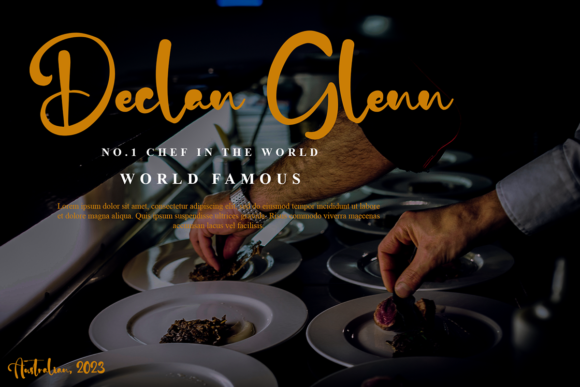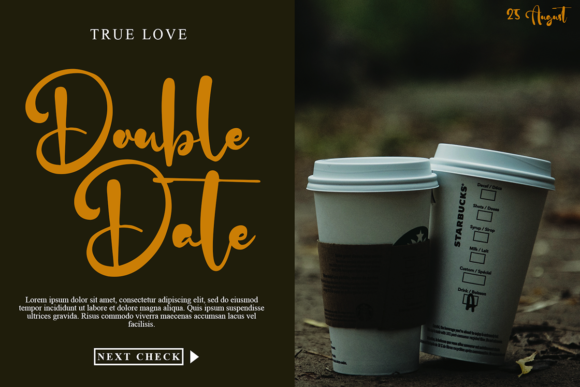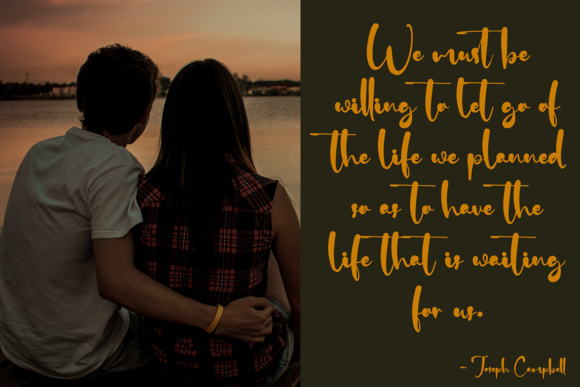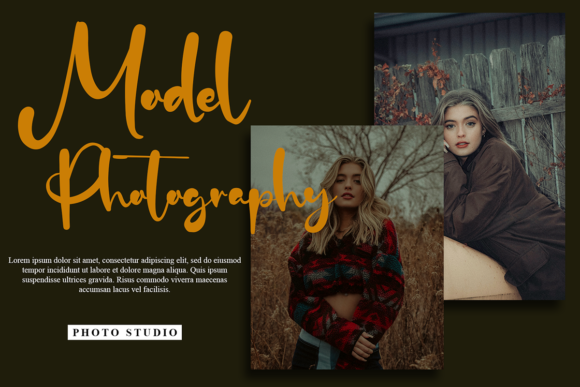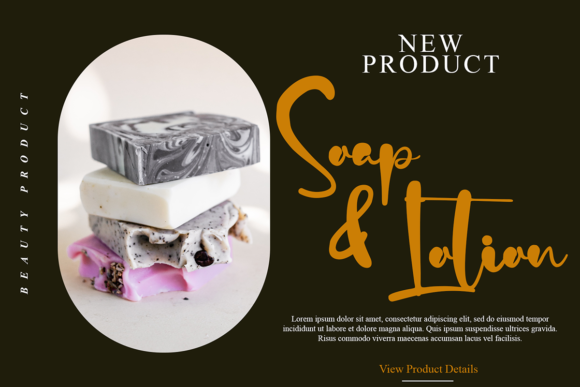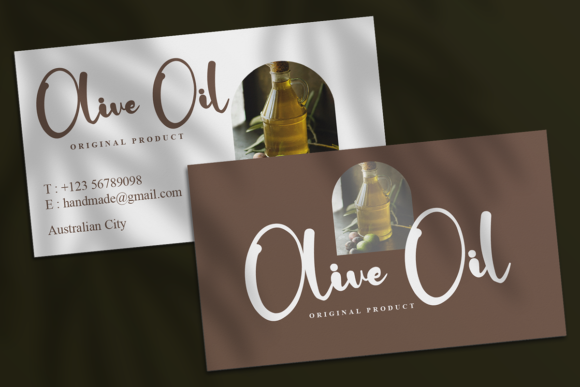
Introducing Dear Rachell Font: Elevate Your Creative Projects with Elegance and Sophistication
In the world of typography, a font can make all the difference in the success of a design project. Whether you’re a seasoned designer or a crafty DIY enthusiast, finding the right font can be a daunting task. That’s where Dear Rachell Font comes in – a modern script typeface designed to add a touch of elegance and sophistication to any creative project.
What is Dear Rachell Font?
Dear Rachell Font is a beautifully crafted script typeface that boasts a comprehensive collection of letters and numbers. This versatile font is perfect for a wide range of applications, from logotypes and branding design to digital lettering, T-shirt/apparel design, posters, magazines, signs, advertising, and more.
Key Features of Dear Rachell Font
- Modern Script Typeface: Dear Rachell Font features a modern script style that exudes elegance and sophistication.
- Comprehensive Character Set: The font includes a wide range of letters and numbers, making it suitable for various design projects.
- Highly Versatile: Dear Rachell Font can be used for logotypes, branding design, digital lettering, T-shirt/apparel design, posters, magazines, signs, advertising, and more.
- Easy to Read: The font is designed to be highly legible, making it perfect for both digital and print applications.
Uses of Dear Rachell Font
Dear Rachell Font is an incredibly versatile font that can be used in a variety of design projects, including:
- Logotypes and Branding Design: Create stunning logos and branding materials that showcase your company’s personality and style.
- Digital Lettering: Add a touch of elegance to your digital artwork, social media graphics, and email signatures.
- T-Shirt/Apparel Design: Design eye-catching T-shirts, hoodies, and other apparel that will make your customers stand out.
- Posters and Magazines: Create visually appealing posters and magazine layouts that showcase your creative vision.
- Signs and Advertising: Use Dear Rachell Font to create eye-catching signs and advertisements that grab attention.
Benefits of Using Dear Rachell Font
By incorporating Dear Rachell Font into your design projects, you’ll enjoy several benefits, including:
- Unique and Creative Designs: Stand out from the crowd with unique and creative designs that showcase your personality and style.
- Elegance and Sophistication: Add a touch of elegance and sophistication to your designs, making them perfect for high-end clients or personal projects.
- Time-Saving: With Dear Rachell Font, you can save time and effort in finding the perfect font for your project, allowing you to focus on the creative aspects of design.
Tips for Using Dear Rachell Font
To get the most out of Dear Rachell Font, here are some tips to keep in mind:
- Experiment with Font Sizes: Play around with different font sizes to create visual hierarchy and add emphasis to your design.
- Pair with Other Fonts: Combine Dear Rachell Font with other fonts to create a unique and visually appealing typography.
- Use in Combination with Images: Pair Dear Rachell Font with high-quality images to create stunning visual compositions.
Dear Rachell Font is a versatile and elegant script typeface that can elevate any design project. With its comprehensive character set, modern style, and high legibility, this font is perfect for designers and crafters looking to add a touch of sophistication to their work. Whether you’re creating logotypes, branding materials, digital lettering, or apparel design, Dear Rachell Font is an excellent choice. So why wait? Download Dear Rachell Font today and take your design projects to the next level!